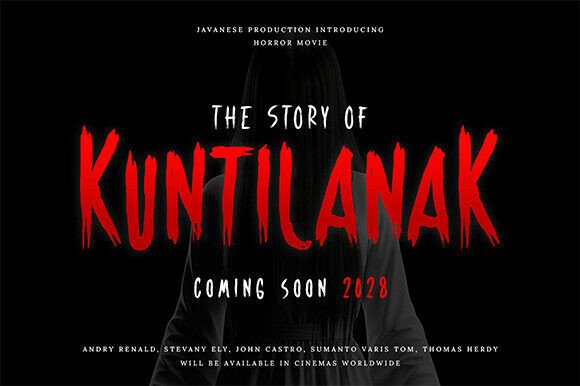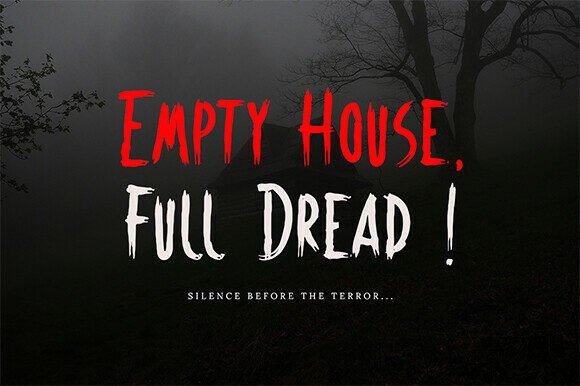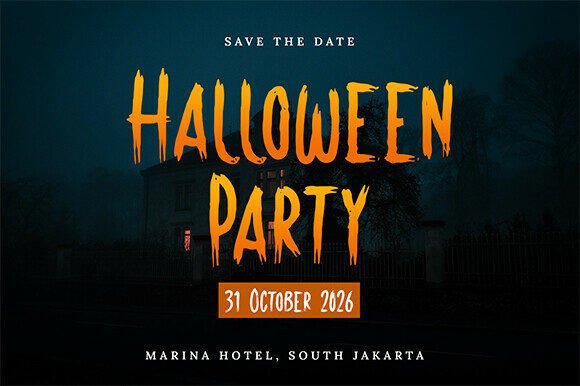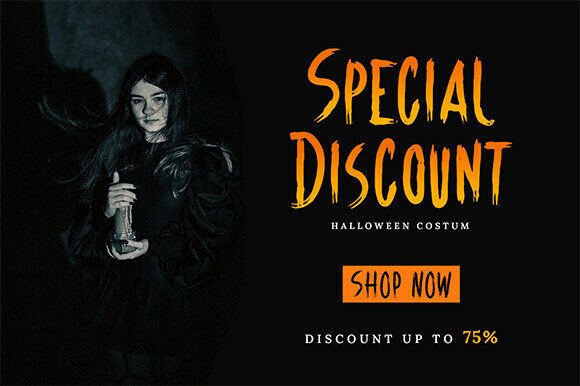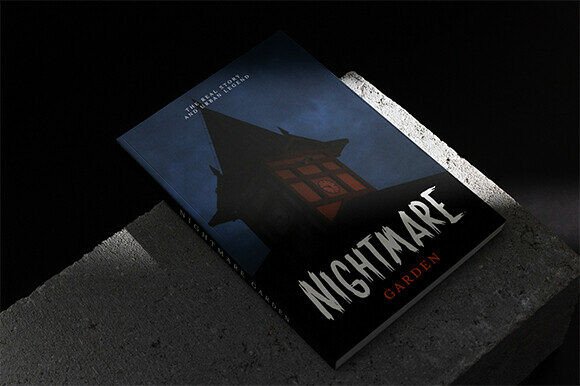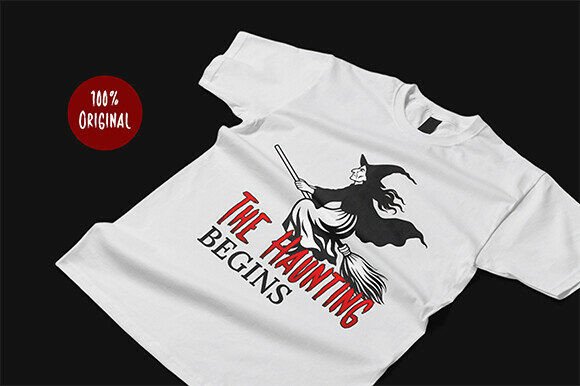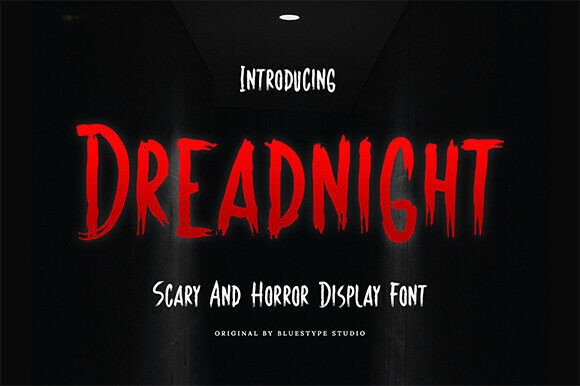
Dreadnight Font: The Ultimate Horror-Themed Font for Halloween
As the spookiest time of the year approaches, designers and crafters are on the lookout for the perfect font to add a touch of horror to their Halloween-themed projects. Look no further than the Dreadnight Font, a chilling horror-themed font created with brush strokes that resemble dripping blood.
The Inspiration Behind Dreadnight
Dreadnight is a unique font that was created to capture the essence of Halloween. The font’s design is inspired by the eerie and suspenseful atmosphere of the holiday, with brush strokes that mimic the look of dripping blood. The result is a font that is both haunting and eye-catching, perfect for adding a touch of horror to any design project.
Key Features of Dreadnight Font
• Horror-themed design: Dreadnight’s design is inspired by the horror and suspense of Halloween, making it perfect for creating spooky and eerie designs.
• Brush stroke texture: The font features a unique brush stroke texture that gives it a hand-crafted look and feel.
• Dripping blood effect: The font’s brush strokes are designed to resemble dripping blood, adding to the overall horror theme.
• High-quality design: Dreadnight is a high-quality font that is designed to be clear and legible, even at small sizes.
Uses for Dreadnight Font
Dreadnight is a versatile font that can be used for a variety of design projects, including:
• Halloween-themed designs: Dreadnight is perfect for creating spooky and eerie designs for Halloween, including invitations, posters, and social media graphics.
• Horror movie promotions: The font’s horror-themed design makes it perfect for promoting horror movies or creating creepy movie posters.
• Creepy crafts: Dreadnight can be used to create creepy crafts, such as Halloween cards, gift tags, and decorations.
• Graphic design projects: The font can be used for a variety of graphic design projects, including logos, brochures, and flyers.
Tips for Using Dreadnight Font
Here are a few tips for using Dreadnight font in your design projects:
• Use it sparingly: Dreadnight is a bold font, so it’s best to use it sparingly to add emphasis to your design.
• Pair it with a neutral font: Pair Dreadnight with a neutral font to create contrast and add visual interest to your design.
• Experiment with colors: Dreadnight looks great in bold, bright colors, but it can also be used in more muted tones to create a creepy, eerie effect.
Dreadnight Font is a unique and terrifying font that is perfect for adding a touch of horror to your design projects. With its horror-themed design, brush stroke texture, and dripping blood effect, Dreadnight is sure to make your designs stand out. Whether you’re a designer or crafter, Dreadnight is a must-have font for Halloween and beyond.